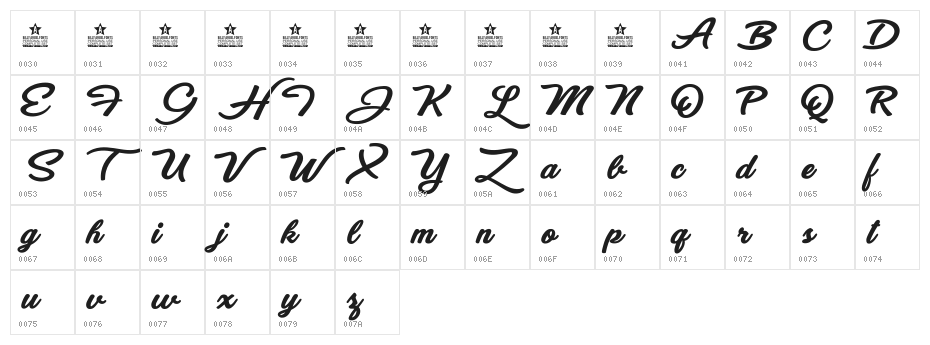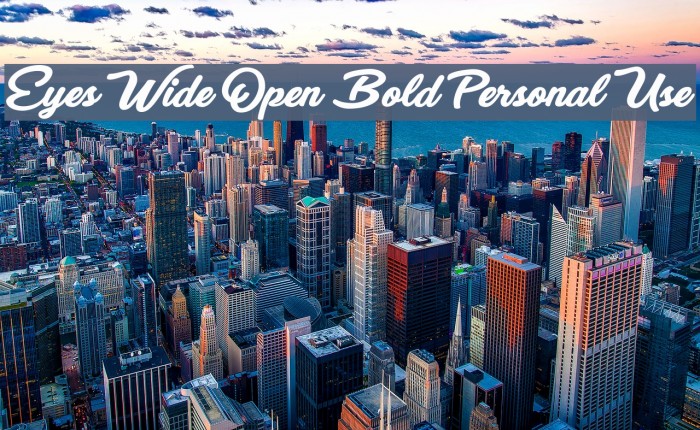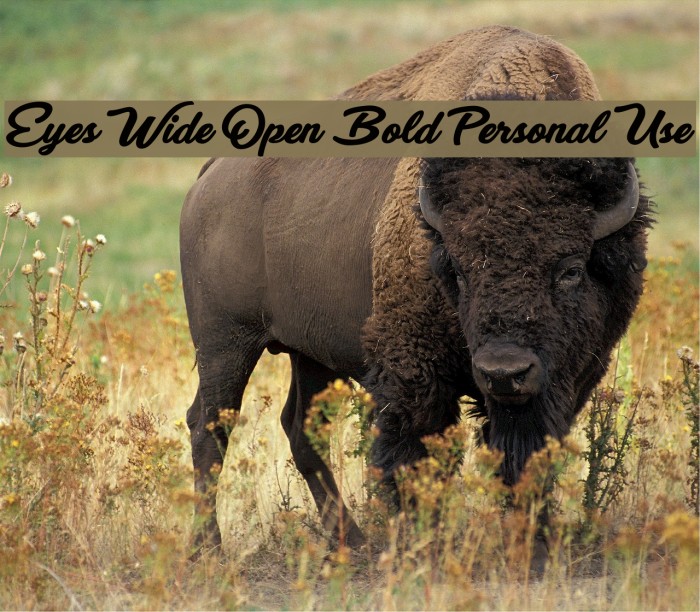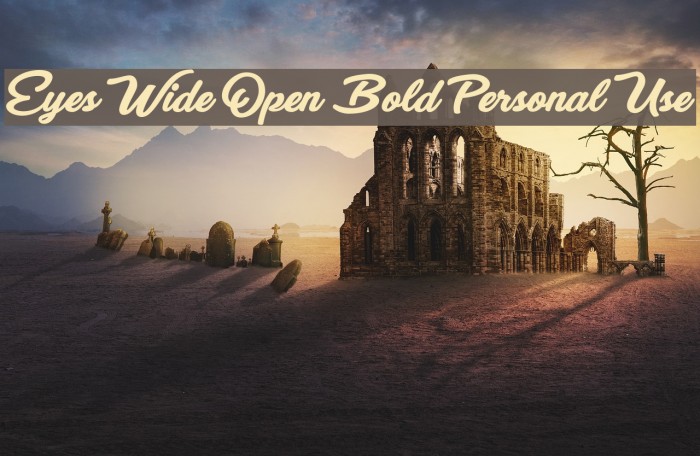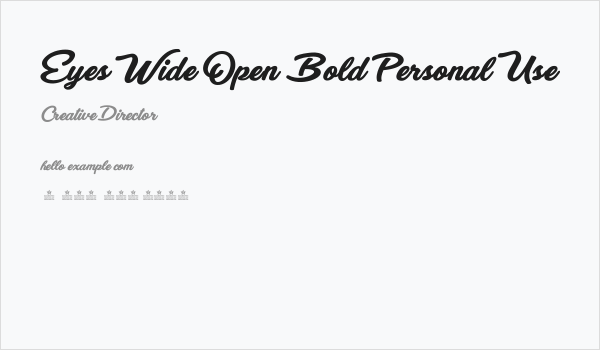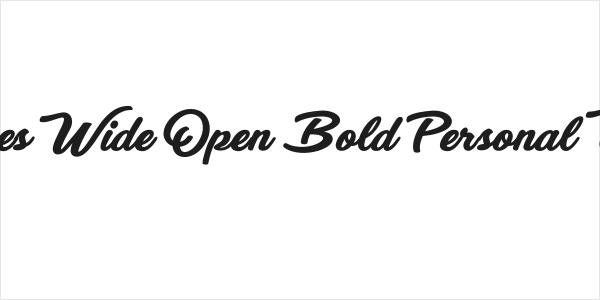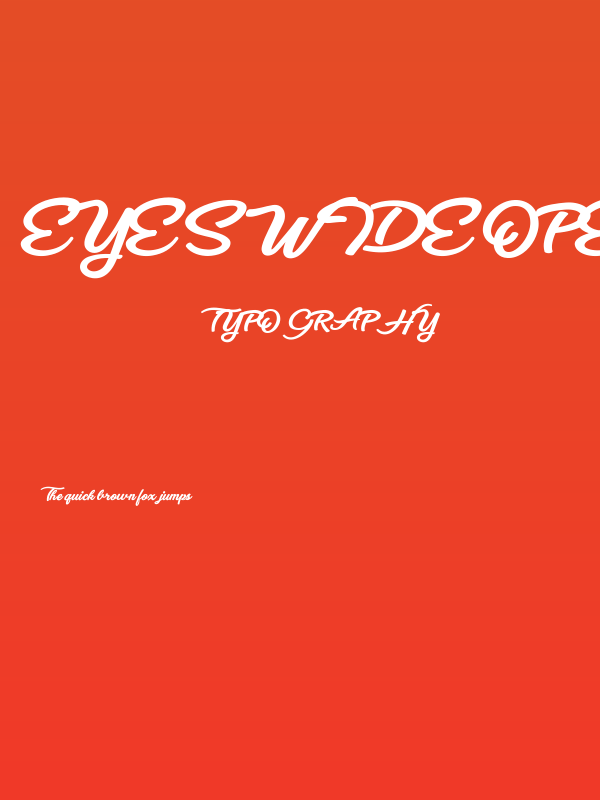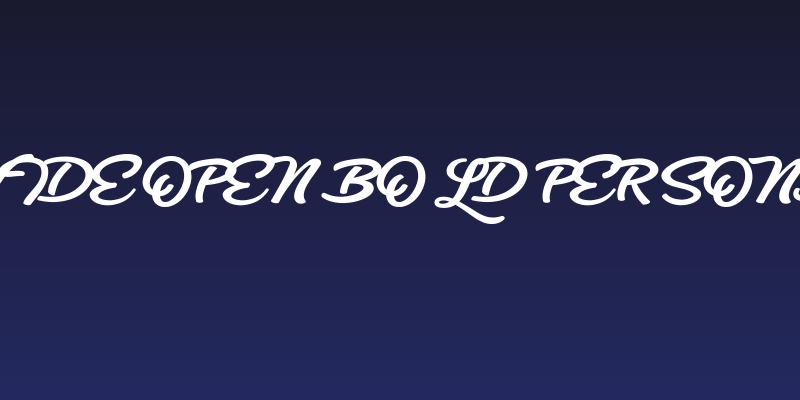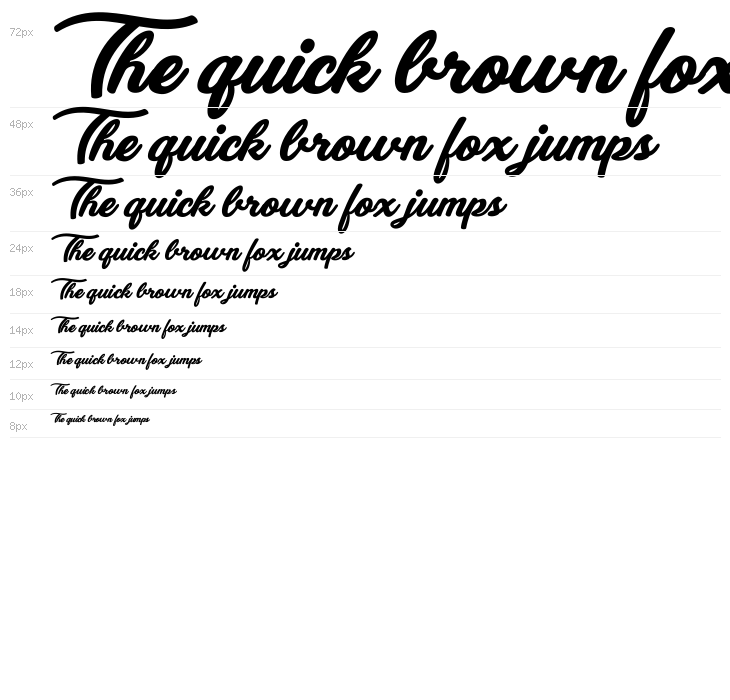
Eyes Wide Open Bold Personal Use Font
Eyes Wide Open Bold Personal Use Description
This font features a bold, expressive script style with a dynamic and flowing appearance. The uppercase letters are elegantly curved, with a slight slant that adds a sense of movement and energy. The lowercase letters maintain a consistent boldness, with smooth connections between characters that enhance the script's fluidity. The overall design is both modern and stylish, making it suitable for a variety of creative applications. The font's bold weight ensures strong visibility, while its script nature adds a touch of sophistication and flair.
| Proposed Projects | Ideal for branding, logos, invitations, and headlines where a bold and stylish script is desired. |